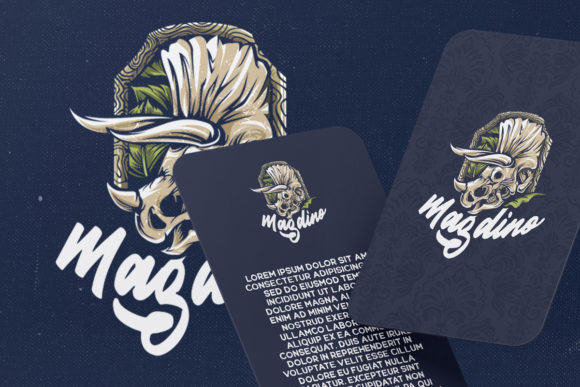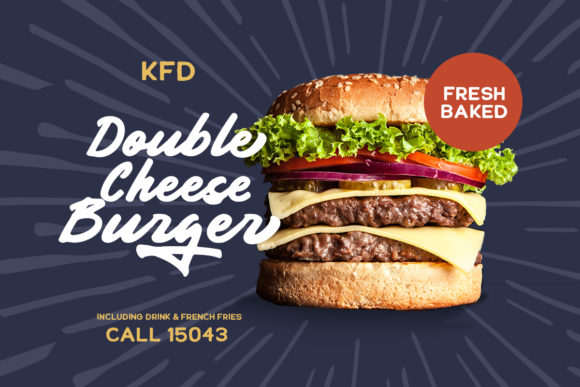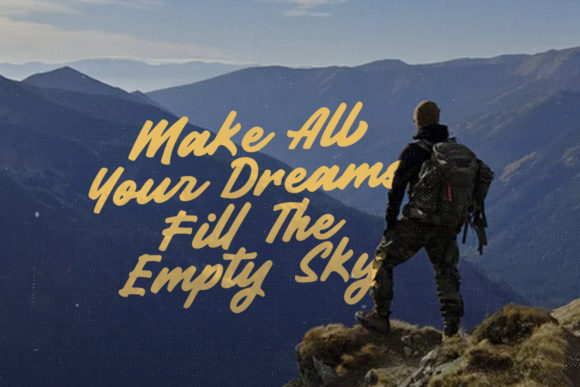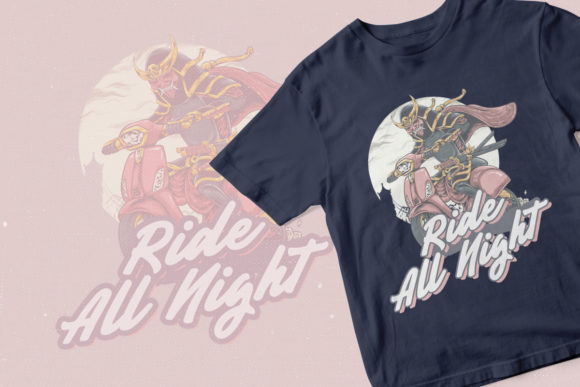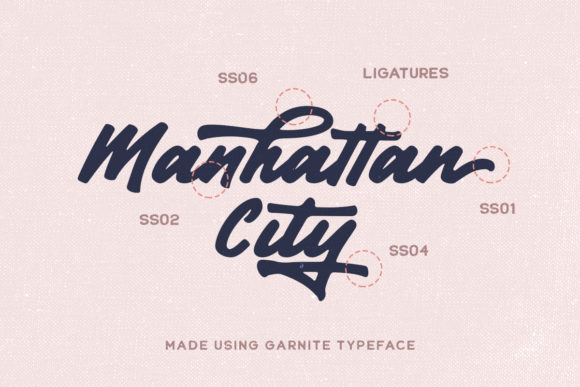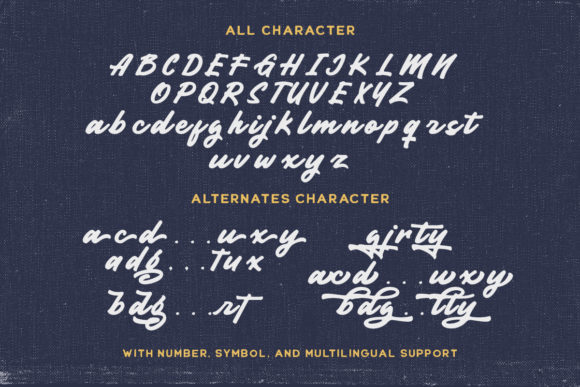
The Elegance of Garnite Font: A Designer’s Delight
I still remember the time I was working on a wedding invitation project, and my client asked for a font that exuded elegance and sophistication. I scoured the internet, tried out countless fonts, but nothing seemed to fit the bill. That was until I stumbled upon Garnite Font. ✨ It was love at first sight! The stylish and elegant script font instantly captured the essence of the occasion, and my client was thrilled with the result.
An Honest Review of Garnite Font
- ✨ Elegant and sophisticated design, perfect for special occasions
- ✅ Highly versatile, suitable for a wide range of design projects
- 💫 Beautifully crafted, with intricate details and flourishes
- 📝 Excellent for adding a handwritten touch to designs
While Garnite Font is an excellent choice, there are a few things to keep in mind: 🤔
- ⚠️ May not be suitable for body text, due to its script nature
- ⚠️ Some characters may not work well in all contexts, requiring manual adjustment
The Backstory of Garnite Font
Garnite Font was designed with the intention of creating a beautiful, elegant script font that would add a touch of sophistication to any design project. The designer aimed to craft a font that would be highly versatile, suitable for a wide range of applications, from wedding invitations to business cards.
Q: What type of projects is Garnite Font best suited for?
A: Garnite Font is perfect for projects that require an elegant, sophisticated touch, such as wedding invitations, thank you cards, quotes, greeting cards, logos, and business cards.
Q: Can I use Garnite Font for body text?
A: While Garnite Font is an excellent choice for headings and titles, it may not be suitable for body text due to its script nature. It’s best used for short paragraphs or phrases.
Q: Does Garnite Font come with OpenType features?
A: Yes, Garnite Font comes with a range of OpenType features, including glyphs, stylistic alternates, and swashes, which can be accessed using the OpenType panel in Adobe Photoshop and Illustrator.
Q: Is Garnite Font easy to read?
A: Yes, Garnite Font is designed to be elegant and legible, making it easy to read, even at smaller sizes.